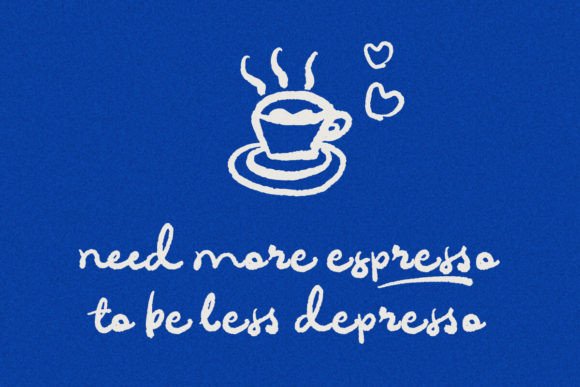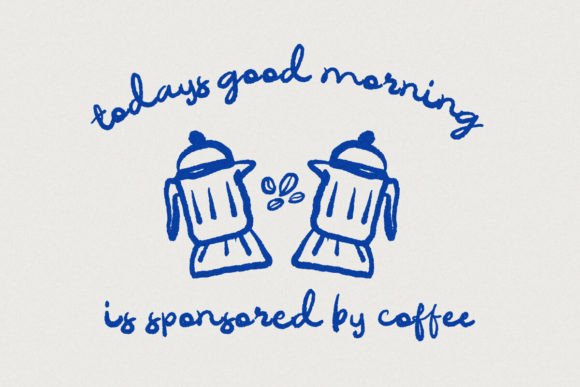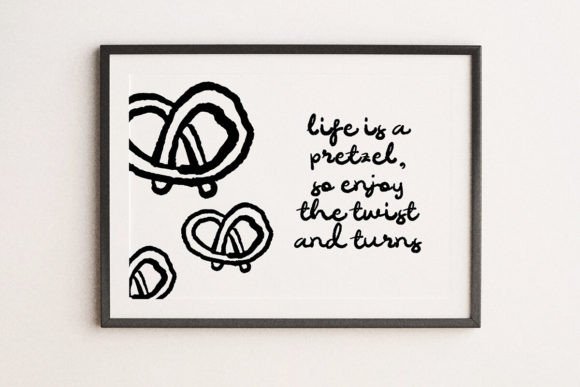
Introduction to Morning Brew Font
Introducing Morning Brew, a natural handwritten script font that brings a warm, personal touch to your projects.
Inspired by the comfort of a freshly brewed cup of coffee, Morning Brew captures the essence of organic, free-flowing handwriting Its fluid strokes and authentic texture make it perfect for adding a cozy, inviting feel to your designs.